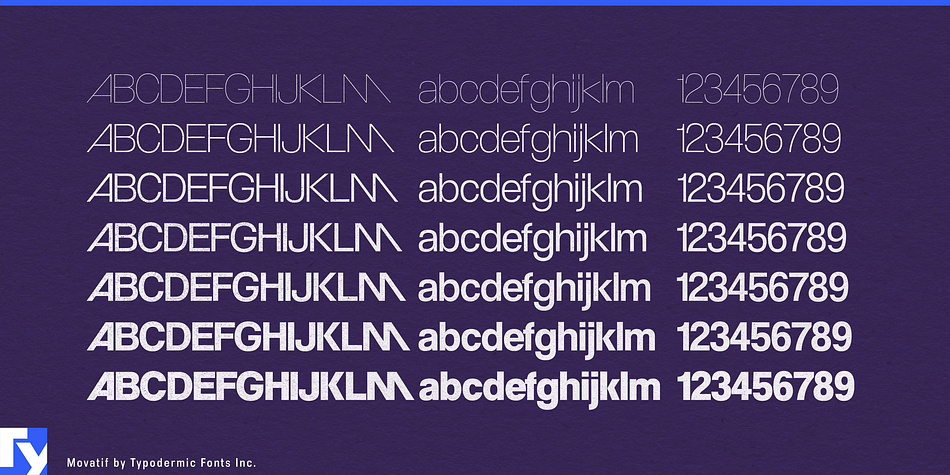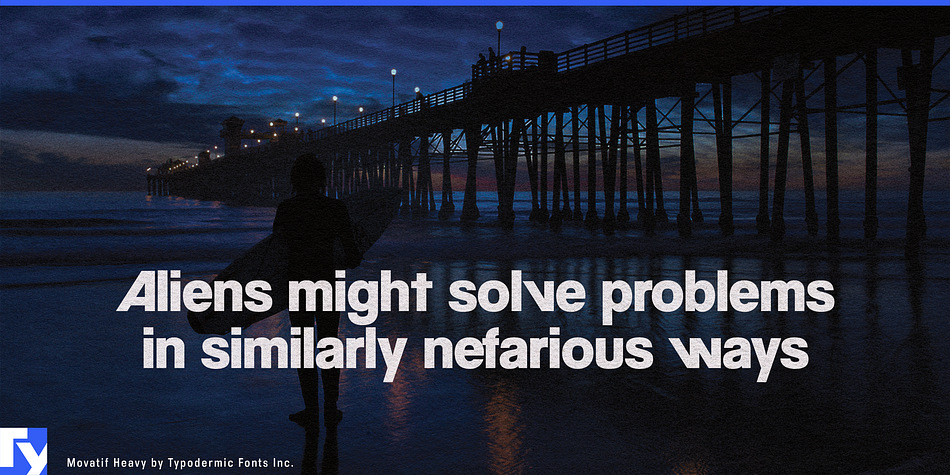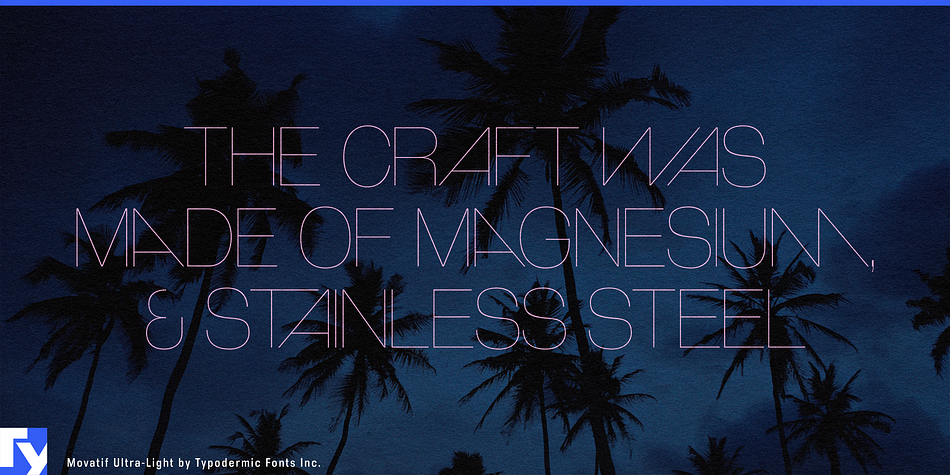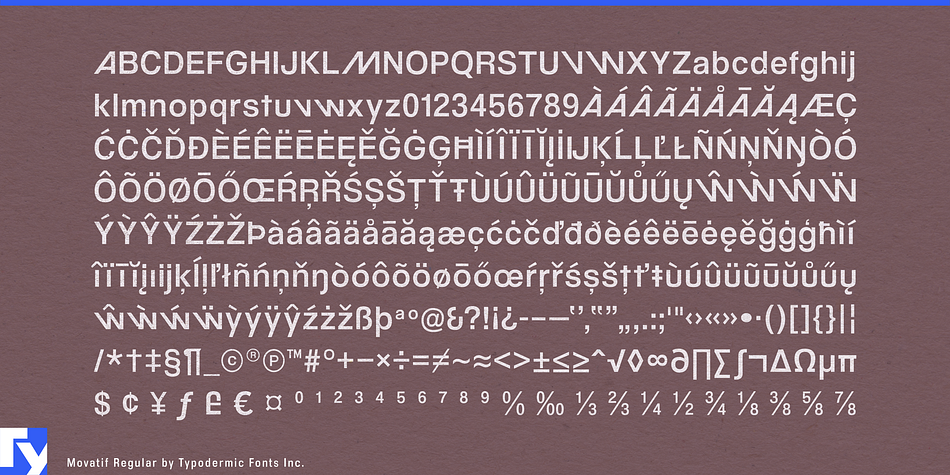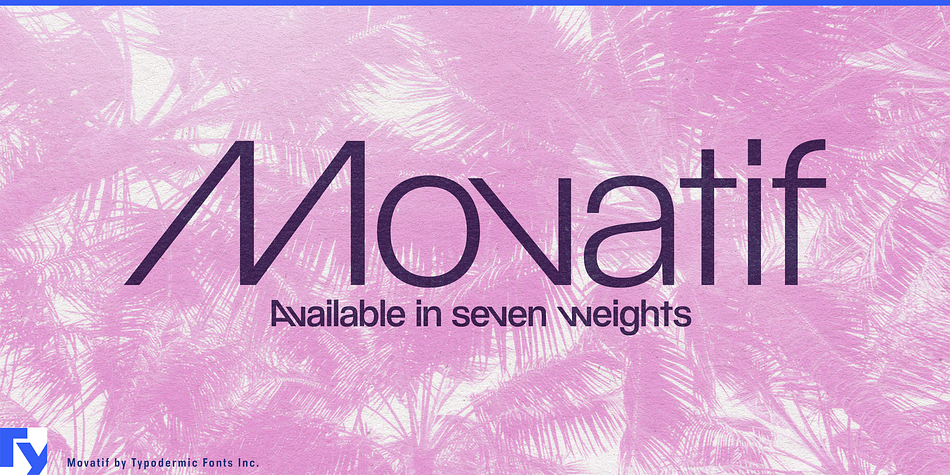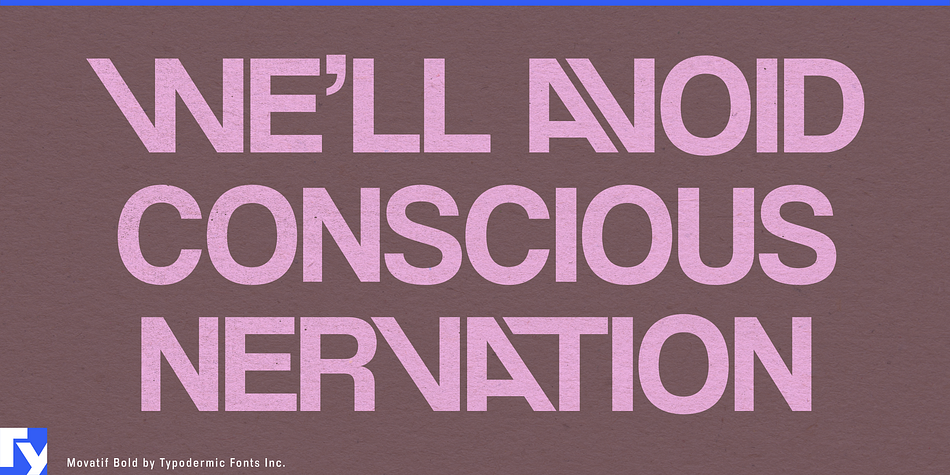
Movatif is a sans serif font family. This typeface has seven styles and was published by Typodermic Fonts Inc.
Movatif is a 7-weight, mashed up 20th Century sans, with ideas from a variety of fonts from that Century.
OpenType savvy applications automatically swap certain letters to add more visual interest and completely freak people right out. So, let’s say you use M and A together, they’ll likely snap together in a cool or at least somewhat interesting kind of way.
Familar parts interact in a unique way that will give your design a customized look and kind of a bleak 1970’s malaise ... also a bit of hipster twerpiness. For best effect: juxtapose with images of fixies, unicorns, Phil Collins, man-purses and red VHS tapes.